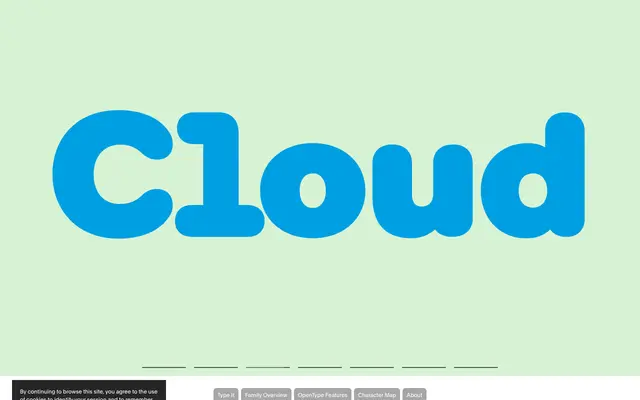
Hermes
A reinterpretation of the Hermes 3000 typewriter's Epoca face by Gavillet & Rust, extended to three widths and variable cuts in 2024.
A sans-serif by Gavillet & Rust, originally drawn in 2001 as a reinterpretation of the Epoca face produced by the Hermes 3000 typewriter. Soft curves, balanced geometry and low-contrast strokes carry a subtle retro charm without leaning kitsch. Redrawn and extended by Amélie Gallay in 2024, Hermes now runs as a collection across Narrow, standard and Wide widths in five weights with italics, plus variable fonts that bridge the widths and connect the gaps between the original Narrow and Wide families.
Optimo describes Hermes as a reinterpretation of the Epoca typeface produced by a Hermes 3000 typewriter, with simple geometrical shapes and low-contrast strokes adapted proportionally for legibility.